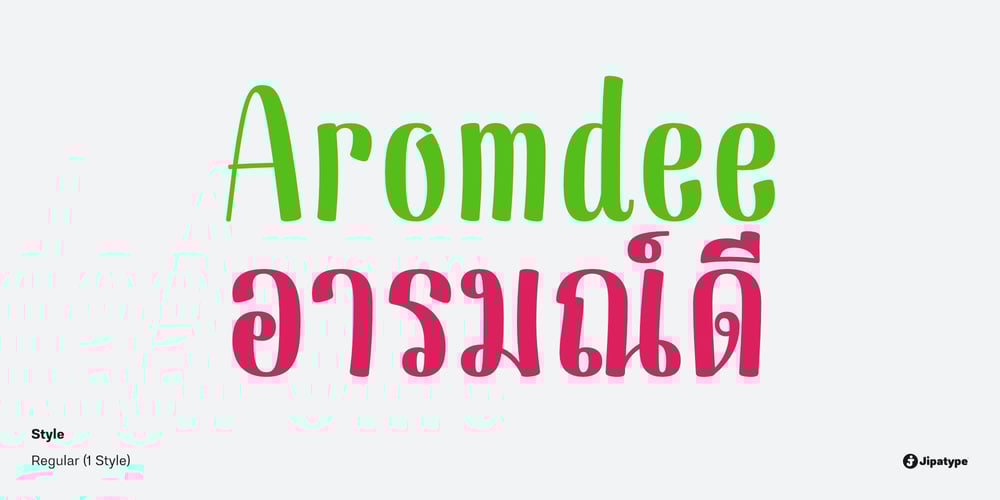
Aromdee
Aromdee font
Aromdee Font Family was designed by Anupap Jaichumnan and published by Jipatype. Aromdee contains 1 styles and family package options. Aromdee is a handwritten headline font style It’s suitable for casual, friendly promotional materials. This font comes in 1 style and supports both Latin 1 and Thai characters.